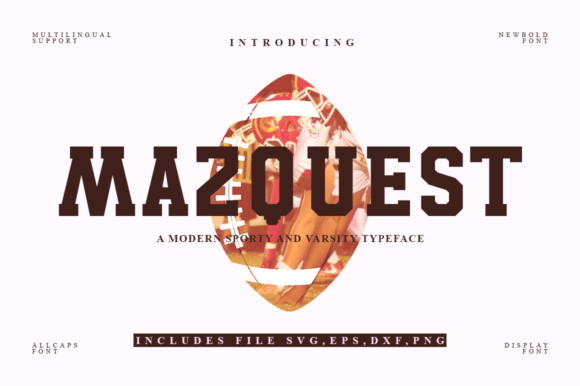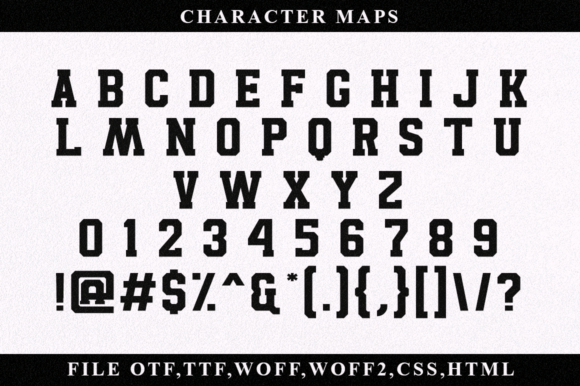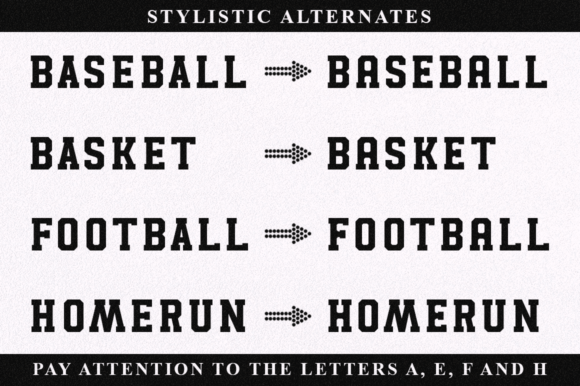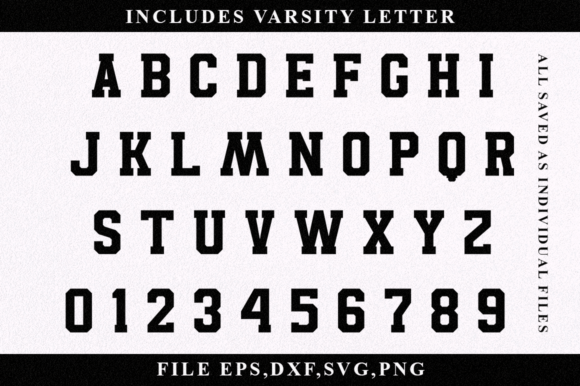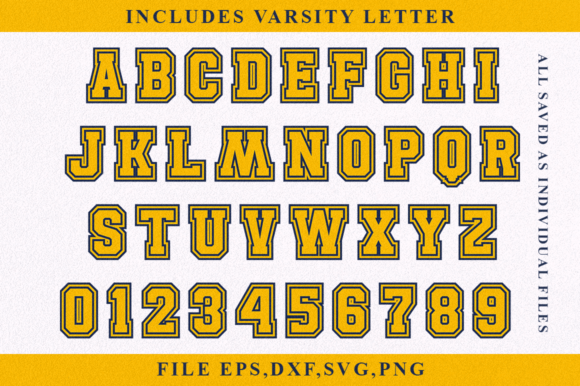
About Mazquest
Mazquest is the perfect combination of strength and energy, designed to convey a sense of power and athleticism. With its bold and dynamic letterforms, this font is ideal for sports branding, fitness products, or any project that demands a strong and active visual identity. Get ready to take your design game to the next level!